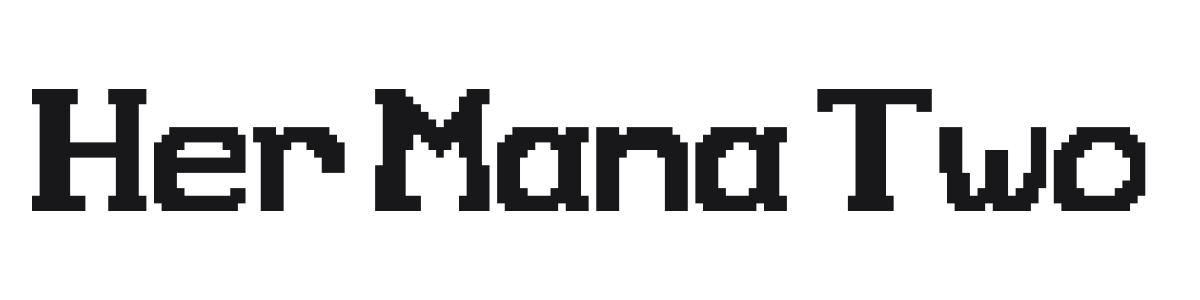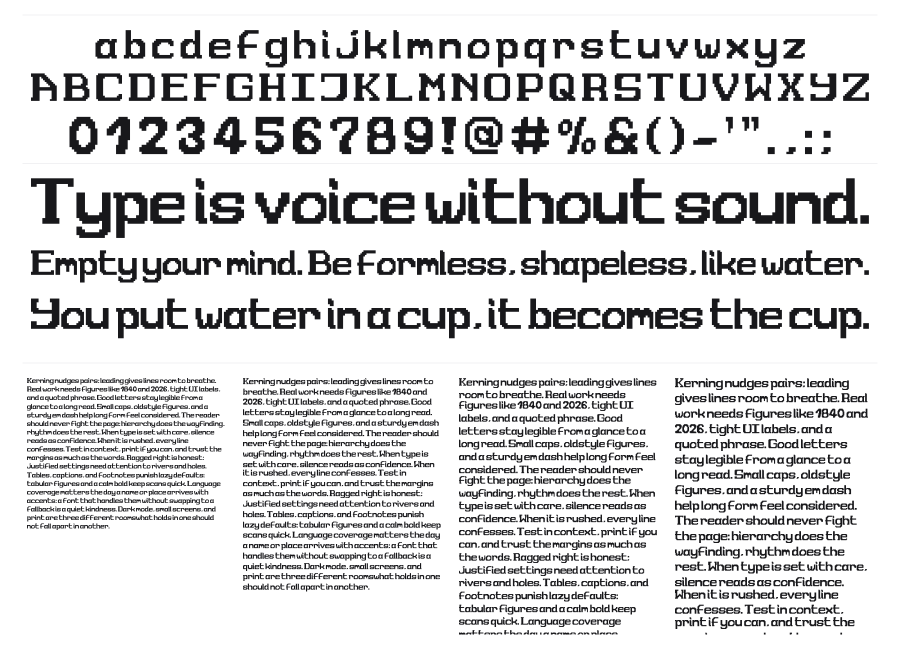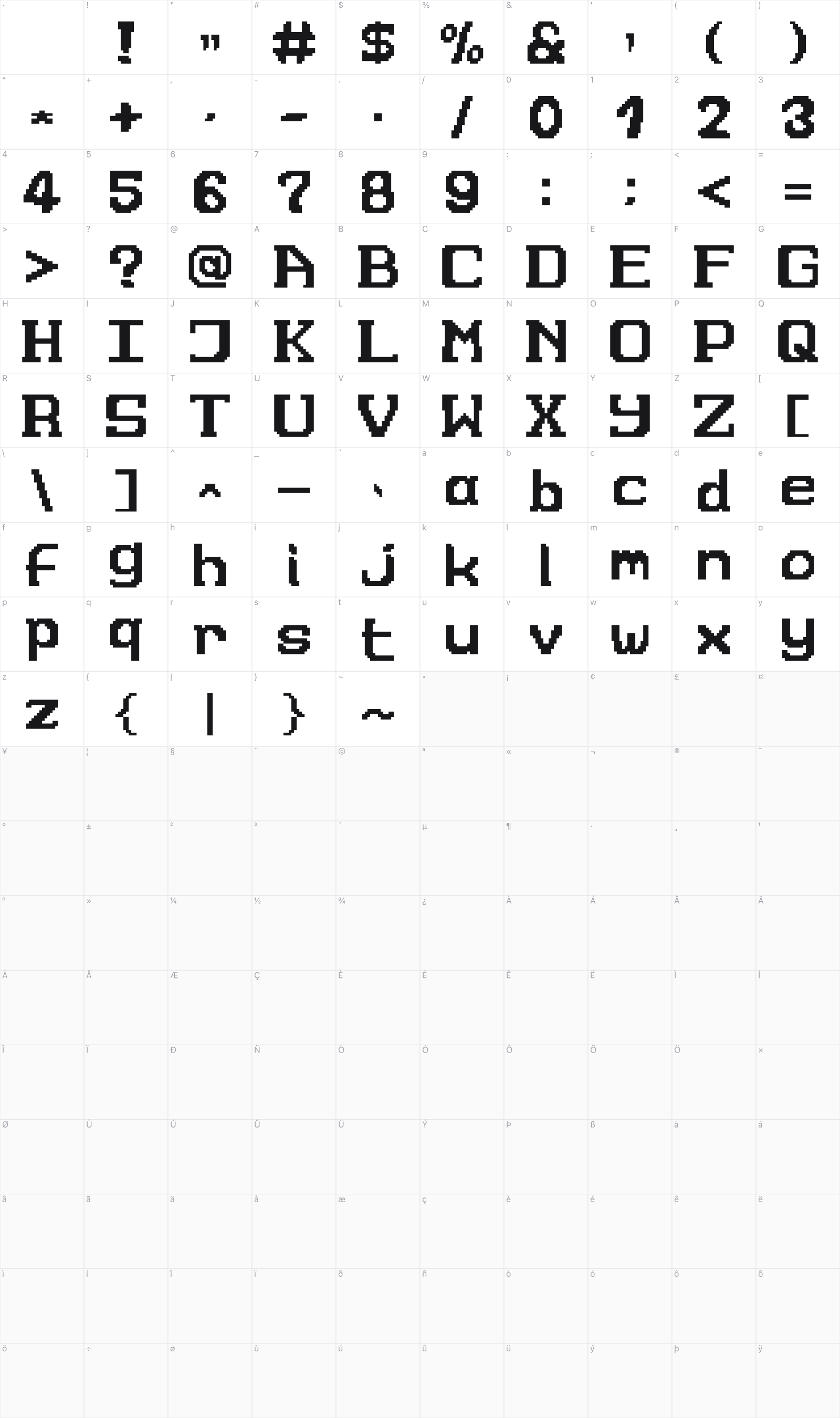
Her Mana Two
Her Mana Two is a chunky pixel bitmap font built from rounded square blocks that evoke classic 8-bit screen typography. The uniform monoweight strokes and stair-stepped curves give it an unmistakably retro digital character without feeling cheap. It works best at display sizes where its pixelated construction reads as a deliberate stylistic choice.